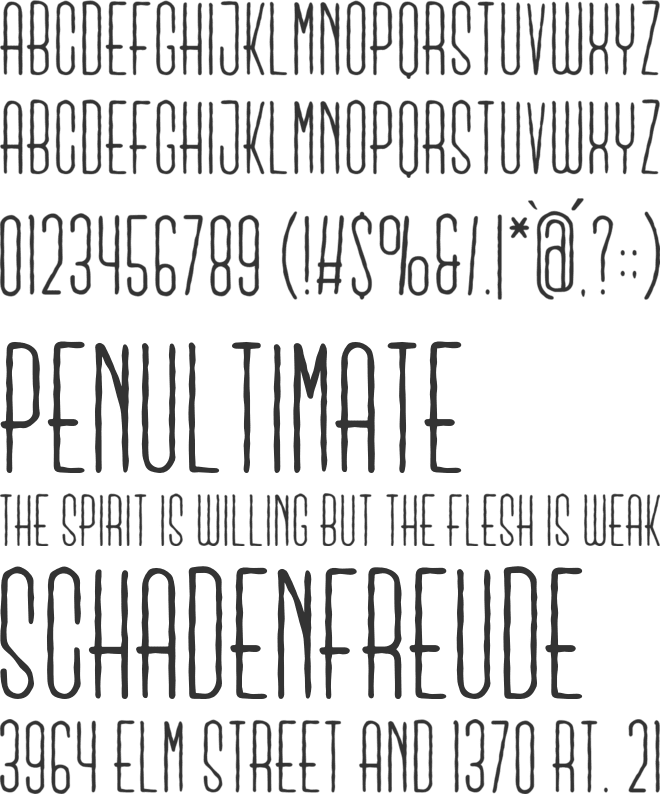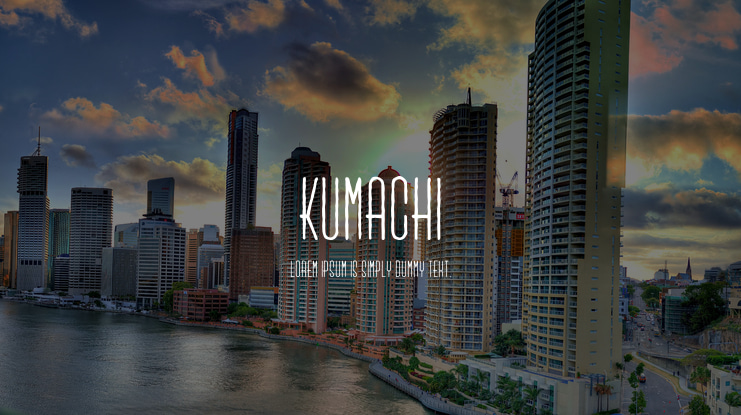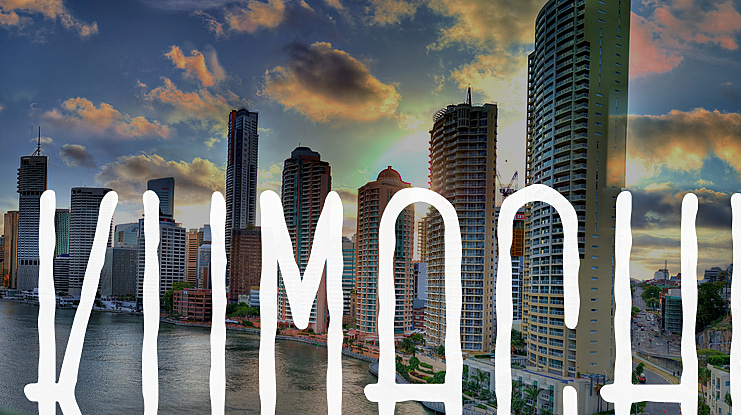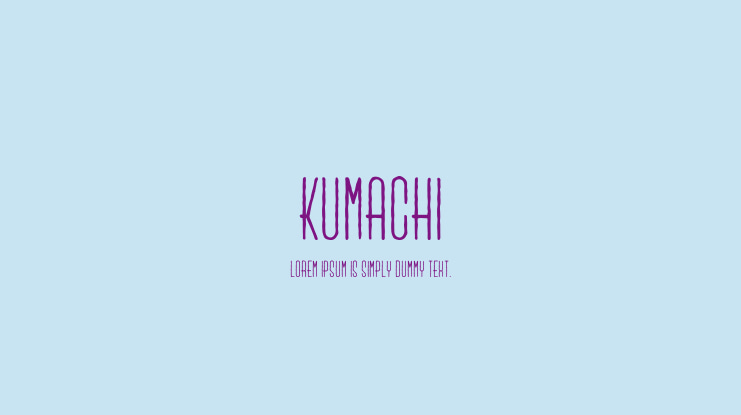
Kumachi Font
Ari Juanda
Kumachi - Ultra Condensend font with stamp style, It's Perfect for logo, name card, magazin layout,headers, or oven large scale artwork